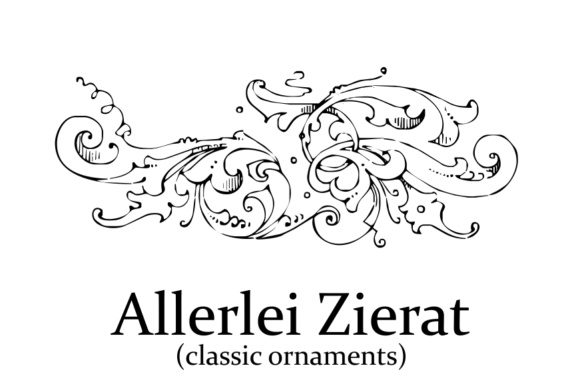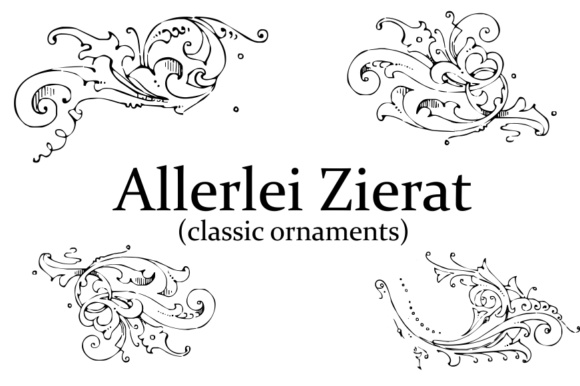
Allerlei Zierat Font
Introducing Allerlei Zierat, a stunning collection of rare ornaments meticulously researched and artistically interpreted from the renowned 1902 Schelter & Gieseck book. This encyclopedic specimen stands as a hallmark of German type foundry and offers a treasure trove of decorative elements to infuse your designs with a sense of high style rooted in tradition and decorum.
Allerlei Zierat showcases a diverse array of exquisite ornaments that have been carefully curated and recreated to capture the essence of the original designs. Each ornament carries a touch of historical significance, representing the artistry and craftsmanship of the German type foundry era.
With Allerlei Zierat, you gain access to a rich variety of ornamental elements that can elevate your design projects to new heights. From delicate filigree patterns to elaborate borders and flourishes, this collection provides a wealth of options to embellish your artwork, stationery, invitations, book covers, and more.
By incorporating Allerlei Zierat into your designs, you not only infuse them with visual appeal but also honor the legacy of German typography. The meticulous research and artistic interpretation behind these ornaments pay homage to the time-honored traditions and attention to detail that characterized the golden age of type foundries.
Whether you seek to create designs with a vintage aesthetic, evoke a sense of elegance and sophistication, or simply add a touch of decorative flair, Allerlei Zierat is a perfect choice. The ornamental elements in this collection offer endless possibilities for customization and creative expression.
Embrace the rich heritage and exquisite beauty of Allerlei Zierat as you explore the vast assortment of rare ornaments. Let the intricate details and timeless appeal of these designs inspire your creativity and help you craft visually captivating compositions that leave a lasting impression.
Immerse yourself in the tradition and decorum of German type foundries with Allerlei Zierat. Elevate your designs with the exquisite charm of these rare ornaments and unlock a world of artistic possibilities that blend the past and present in a harmonious union.